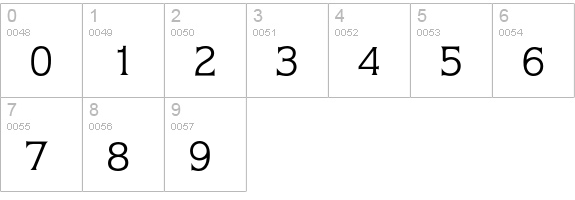
Quorum* Book Font Details
Quorum* Book is a comfortable, highly readable variant in the Quorum* typeface family \xE2\x80\x94 well suited to long-form body text, articles, and editorial content.
Quorum Book font is a stunning typeface that effortlessly combines elegance and readability. Its sleek and sophisticated design makes it perfect for a variety of creative projects, from book covers to branding materials. With its clean lines and balanced proportions, Quorum Book font exudes a timeless appeal that will capture the attention of readers and viewers alike. The font's subtle curves and soft serifs add a touch of warmth to its overall aesthetic, enhancing the legibility without sacrificing its stylishness. One of the most remarkable features of Quorum Book font is its versatility. Whether used for body text or headlines, this font maintains its clarity and visual impact. Its generous x-height ensures comfortable reading, while its well-spaced letterforms create a harmonious flow of text. But what sets Quorum Book font apart from other typefaces is its availability as a free download. FontsMarket.com offers this remarkable font for free, allowing designers, creatives, and typographers to access its beauty and functionality without any barriers. This means that you can enjoy the elegance and versatility of Quorum Book font without worrying about cost. Don't miss out on the opportunity to enhance your design projects with Quorum Book font. Download it freely at FontsMarket.com and explore the endless possibilities it offers. Whether you're working on a book layout, website design, or any other creative endeavor, Quorum Book font will elevate your work to new heights of sophistication and professionalism.